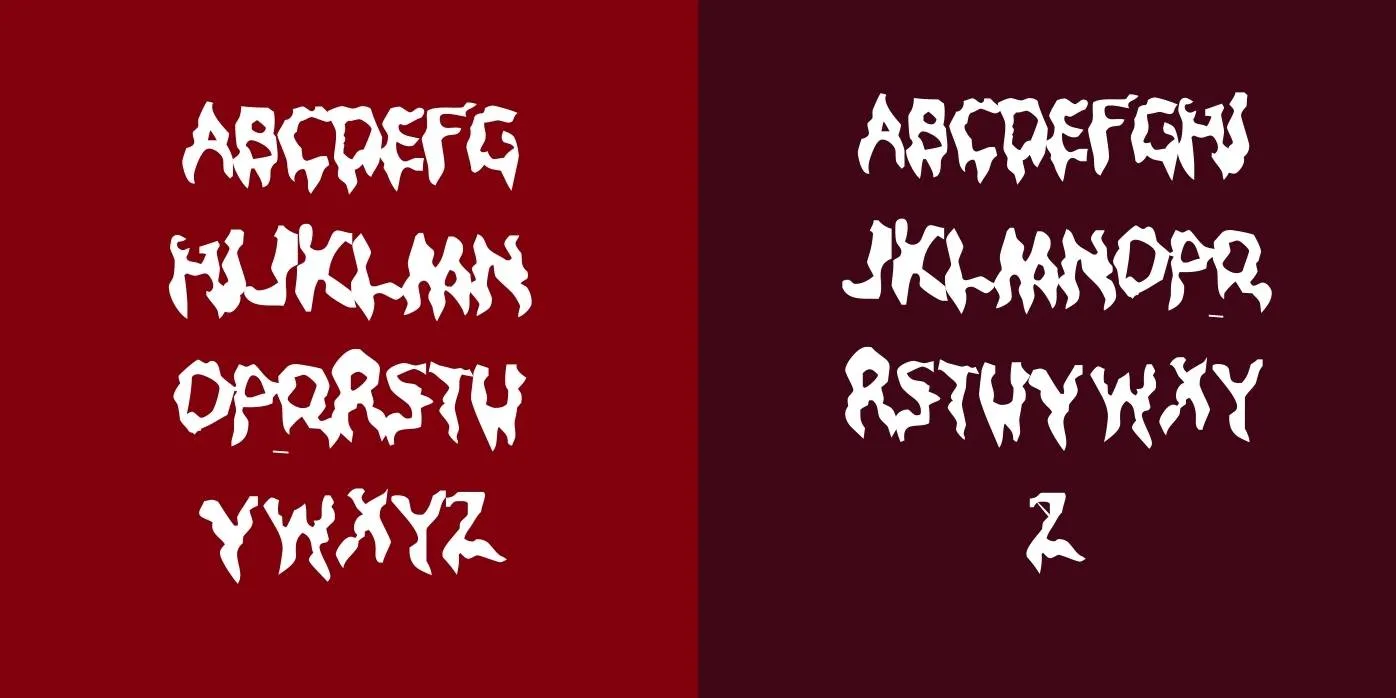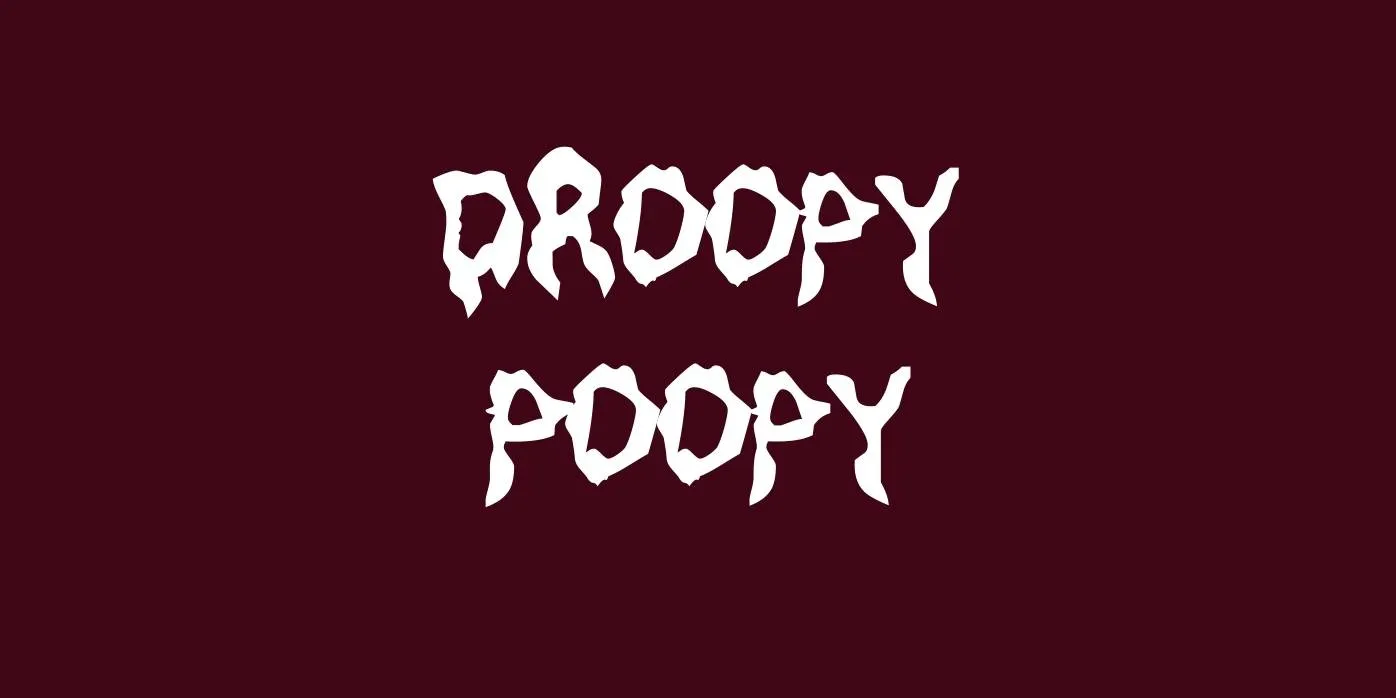
Droopy Poopy Font
Toxic Type Designed Droopy Poopy font. This texture is a fancy typeface. It has horror-type characters. It has 98 glyphs and 56 unique characters.
In these characters, there are only capital characters, marks of exclamation, full-stop, and commas. This texture does not compromise with the numbers, special letters, lowercase letters, and punctuation. You can be installed and used on many devices such as MacOS, Android, Linux, IOS, and computers. The house of horror font works well with Droopy Poopy font.
This pairing gives a fantastic look to the project that can easily grab the attention of people. It is also supportable by many software like Adobe Illustrator, Photoshop, MS Word, Sony Vegas, and Autocad. It has only one style. This one style of this typeface family is called regular.
It has a wide range of features but mainly it is used in Halloween parties.